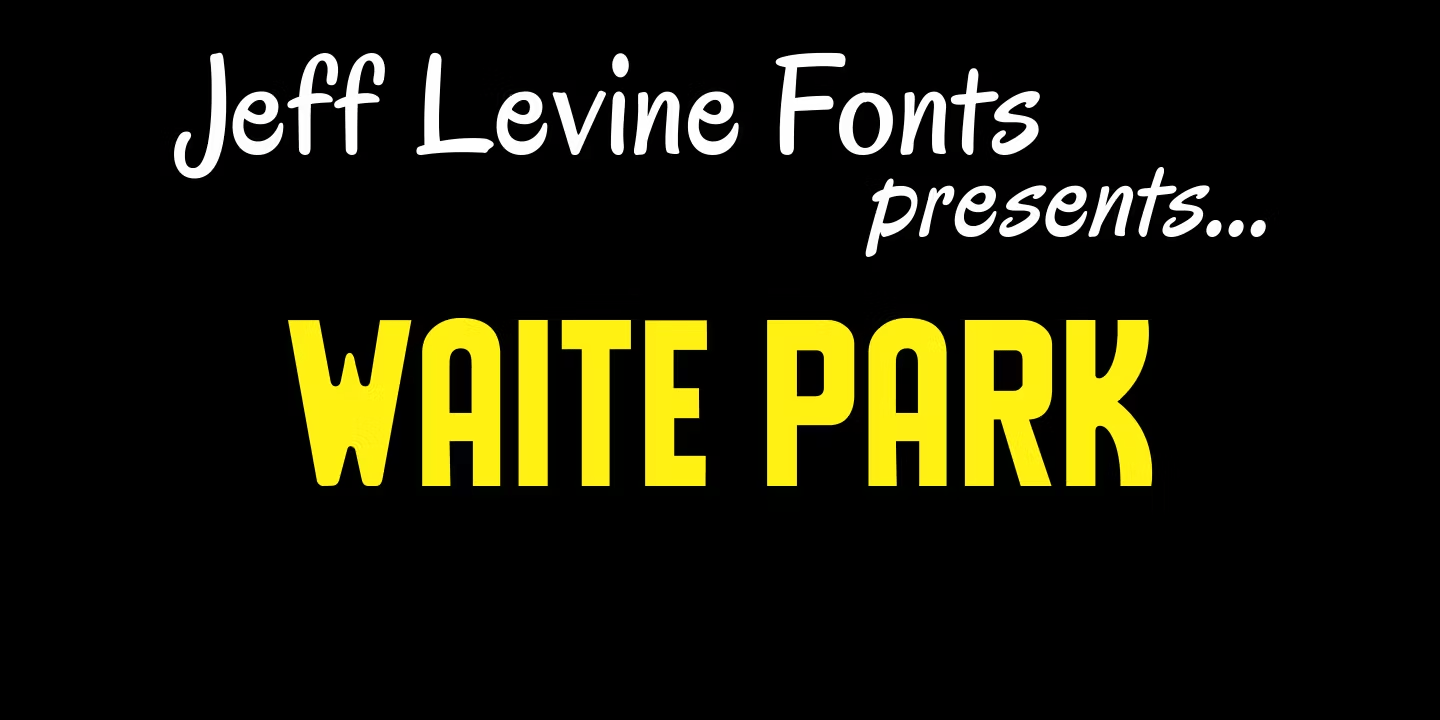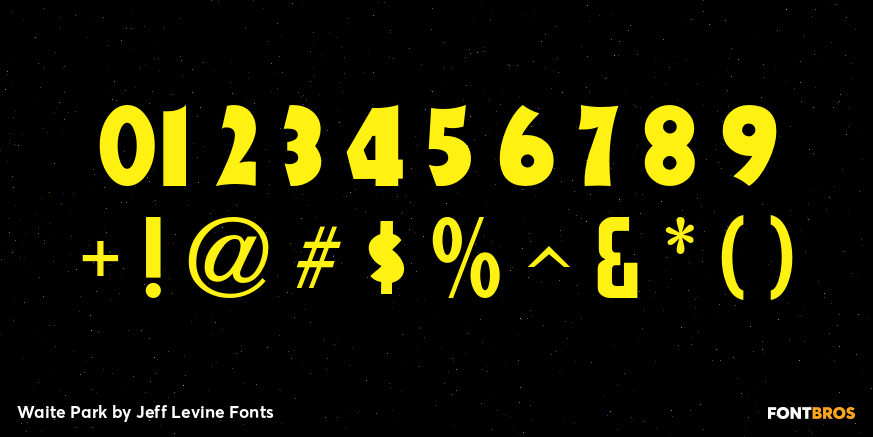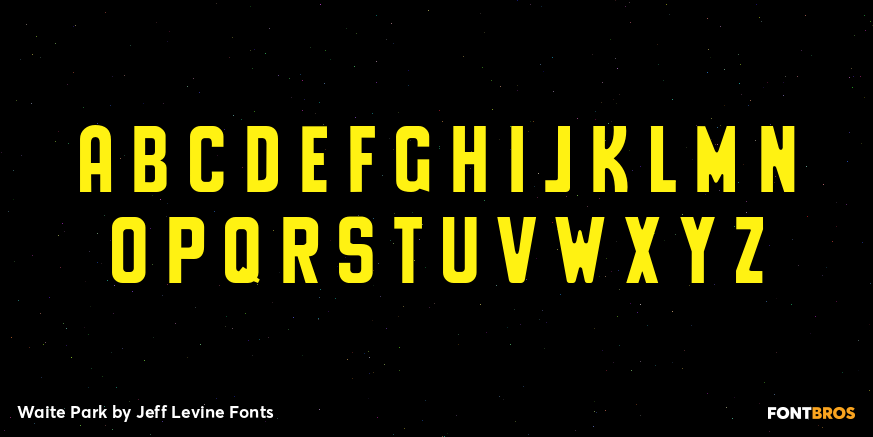
Waite Park
Waite Park JNL is based on the smallest of the die-cut letters and numbers contained in the Webway Sign Cabinet – once manufactured by the Holes-Webway Company of Minneapolis, Minnesota.
The largest of the set's sizes (2 inch) was the model for Sign Kit JNL, the medium size (1-1/8 inch) was used to make Sign Production JNL and this font is a version from the 3/4 inch size.
Each size of alphabet and numerals have their own unique characteristics, although they all follow the same basic font style, which is reminiscent of classic Art Deco-era sanserif typefaces.
The name Waite Park JNL was derived from a division of Holes-Webway that [for some reason lost to time] distributed their sign kits under the name Waite Park Sign Company, located in the Minnesota city of the same name.